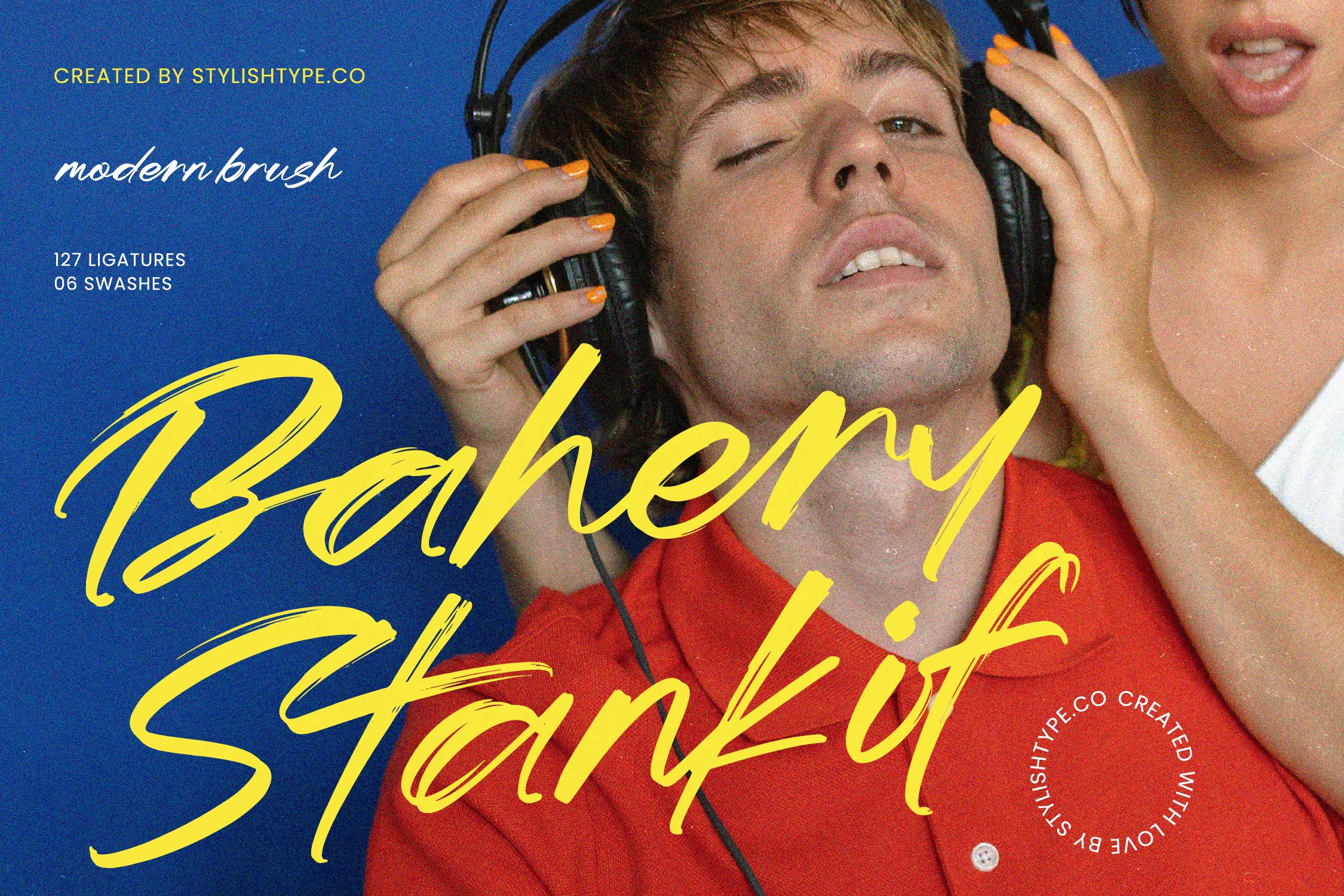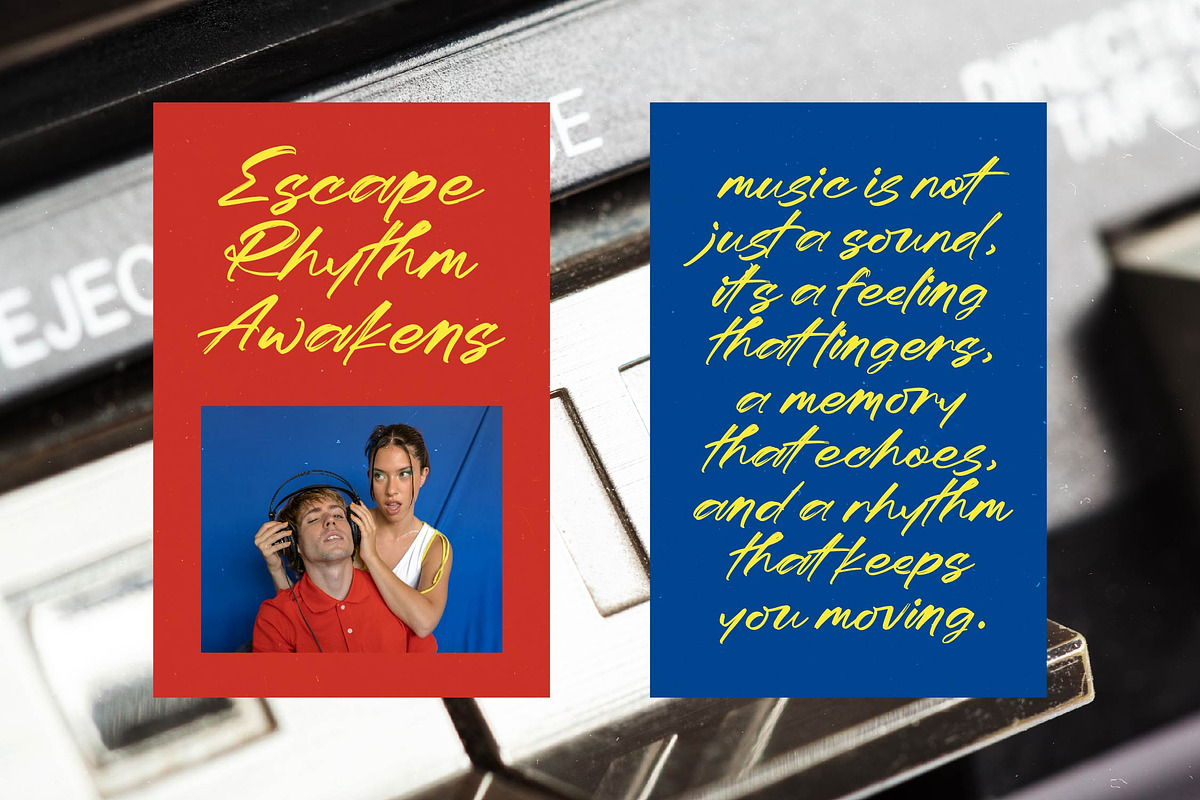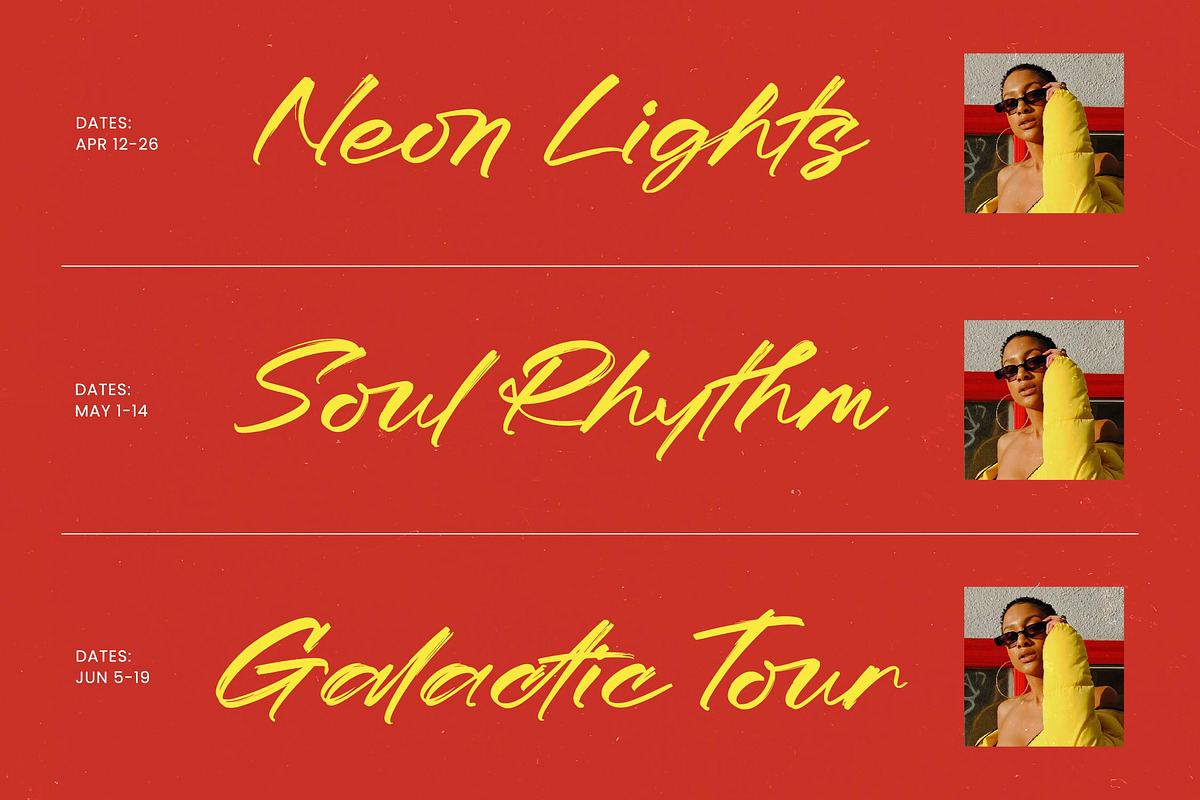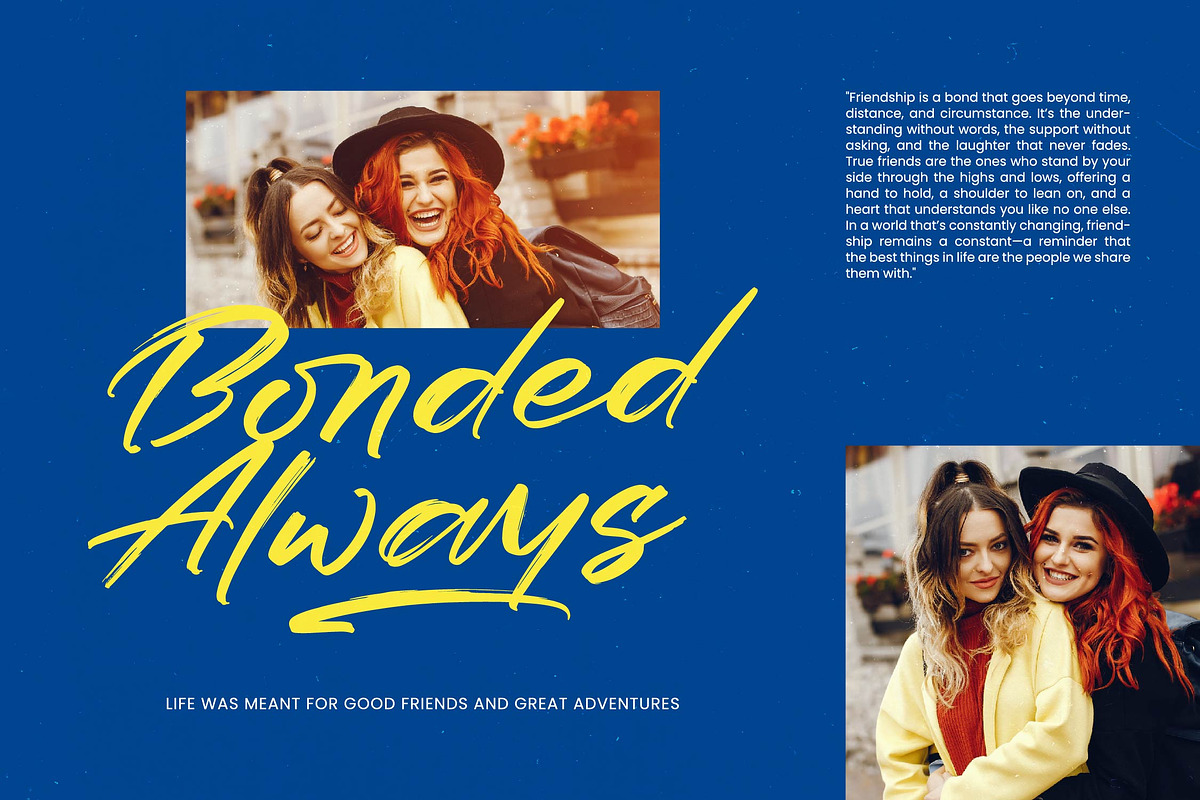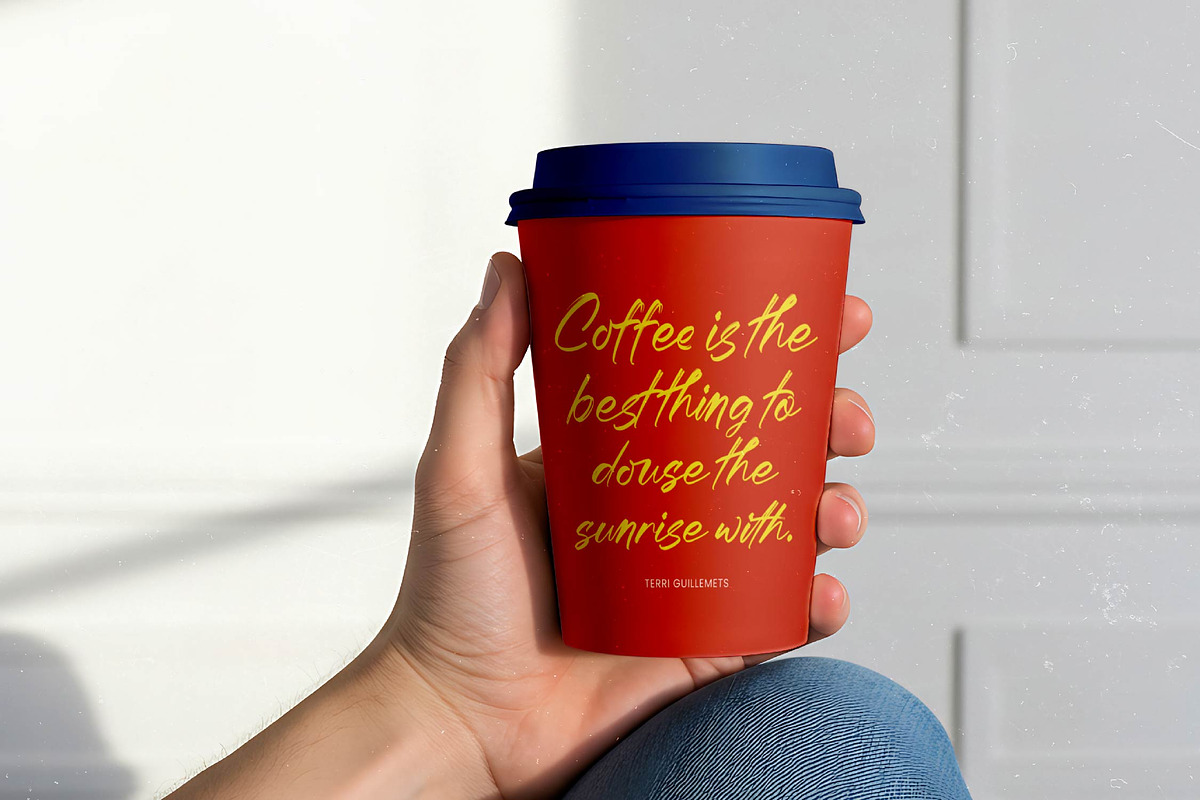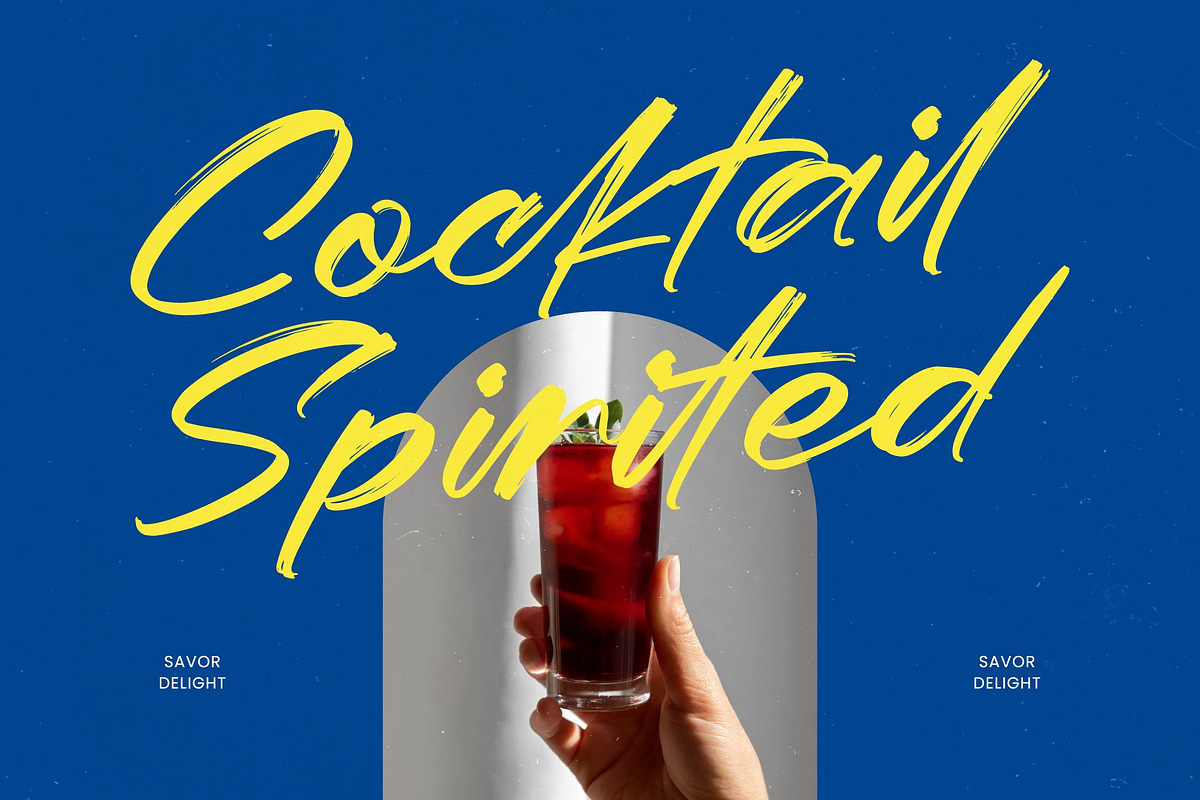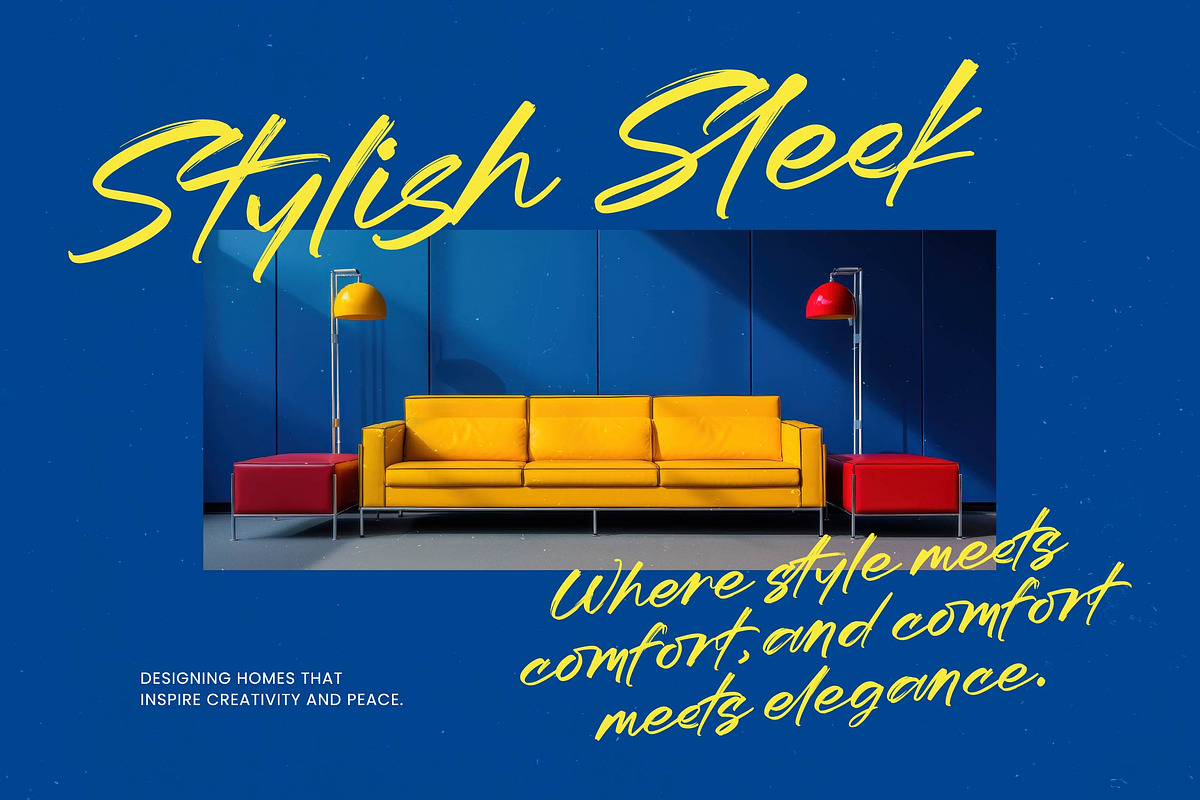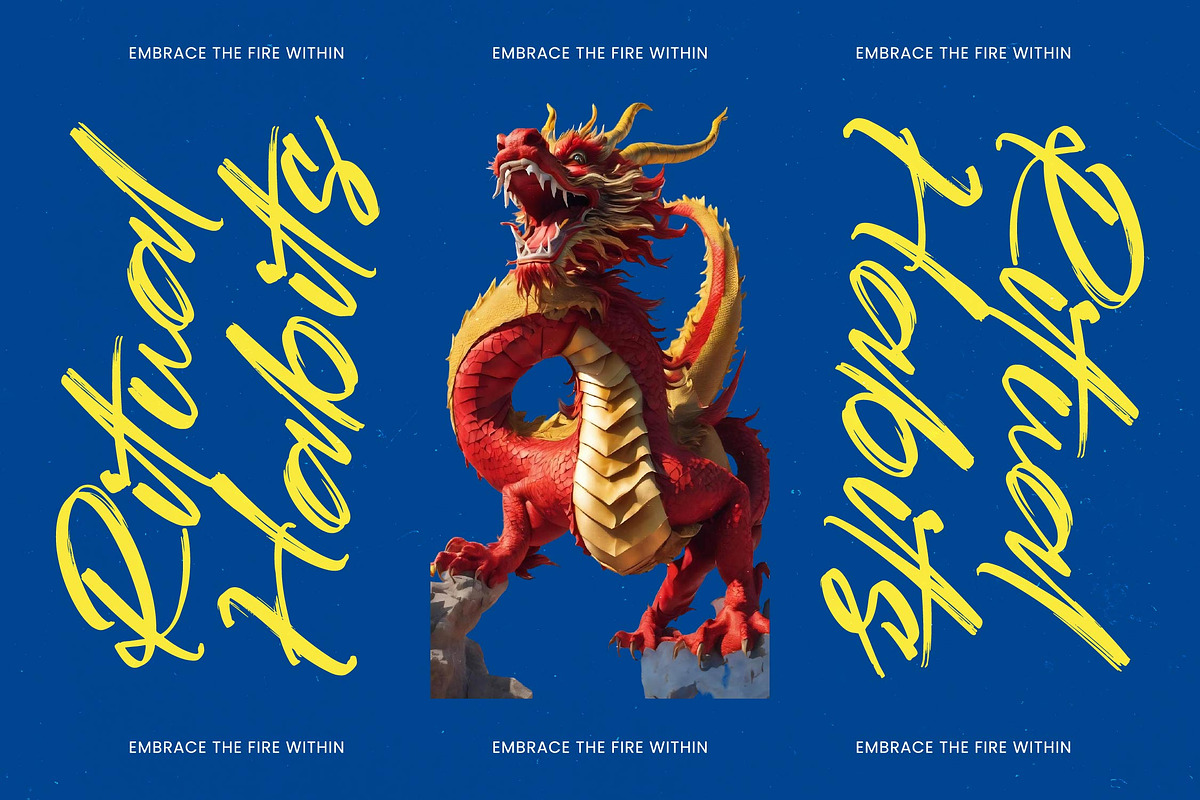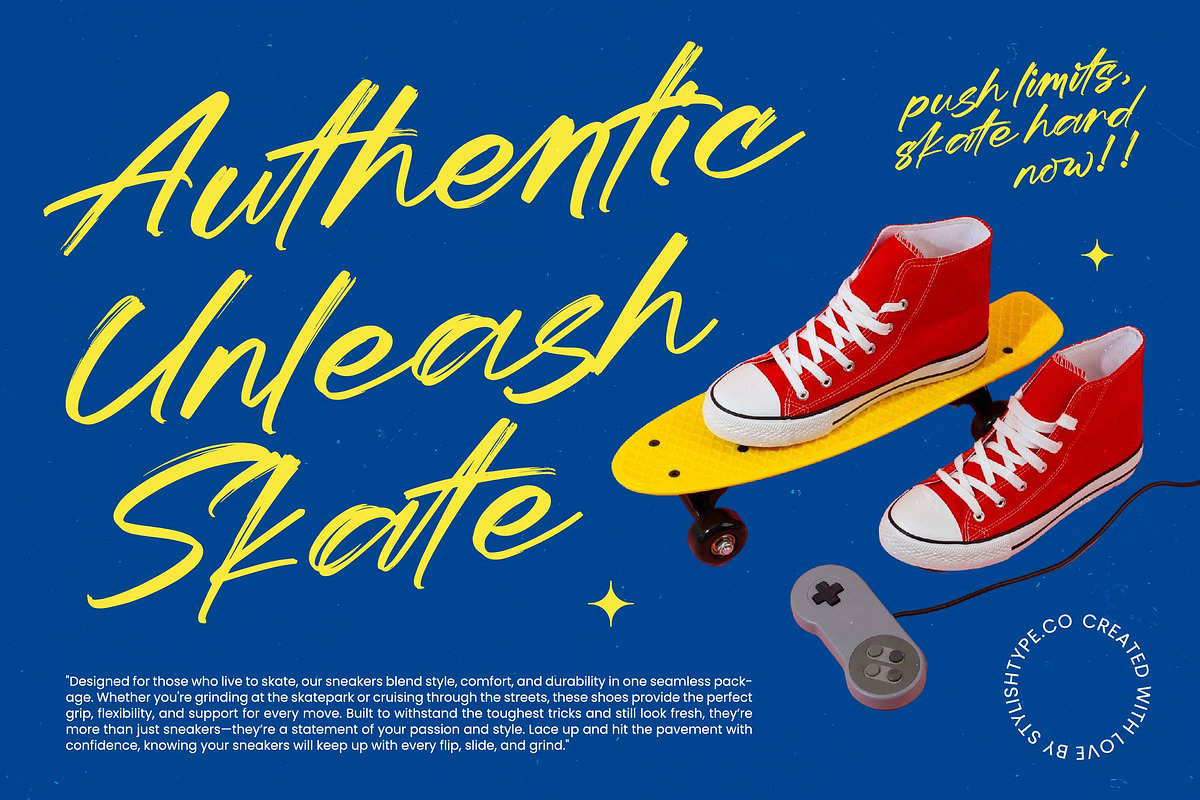
Bahery Stankif Modern Brush Font
Bahery Stankif - Modern Brush Font , Bahery Stankif captures the raw energy of urban motion, blending street-style confidence with a sophisticated hand-drawn edge. It is a font designed to make a statement that is both personal and powerfully present in any modern layout.
Inspired by the fluid strokes of a fast-moving brush, this typeface mirrors the rhythm of a bustling city and the spontaneity of creative expression. It feels like wet ink drying on a canvas in a high-fashion studio, where every mark is intentional yet wild.
While it breaks traditional rules, the modern serif display qualities are reimagined here through a hand-drawn lens, offering a unique take on luxury typography. This high-contrast serif alternative delivers an incredible branding impact that functions as a high-end editorial font for the modern age.
This typeface perfectly captures the modern serif trend while providing a more organic feel for contemporary editorial display fonts. It stands at the forefront of character-driven typography, meeting the needs of designers who want to move beyond standard, sterile digital layouts.
This is the ultimate choice for high-energy logo design and bold fashion editorial layouts. From edgy packaging to contemporary branding projects, its versatility excels in any medium, including wedding stationery that requires a rebellious edge or luxury editorial spreads.
The package is fully loaded with a comprehensive set of ligatures and swashes that ensure your designs remain unique and custom-tailored. It includes full multilingual support and a wide array of international characters to make your message accessible across the globe.